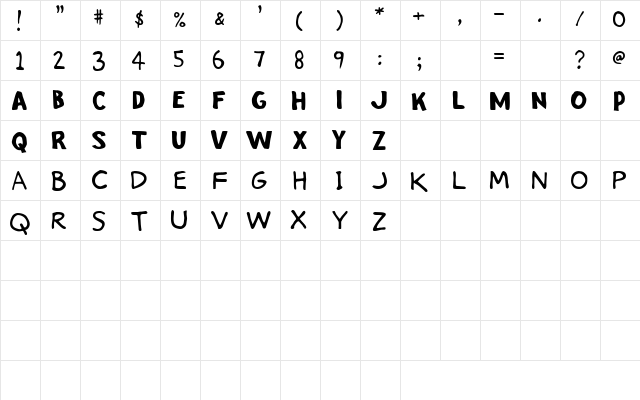
Stinky Kitty Regular
Design Context for Stinky Kitty Typeface
Stinky Kitty is a composed and adaptable typeface that performs quietly and consistently across a wide range of design contexts.
Pro Tip: Use Stinky Kitty in both headline and body roles to test its range before committing to a single application.